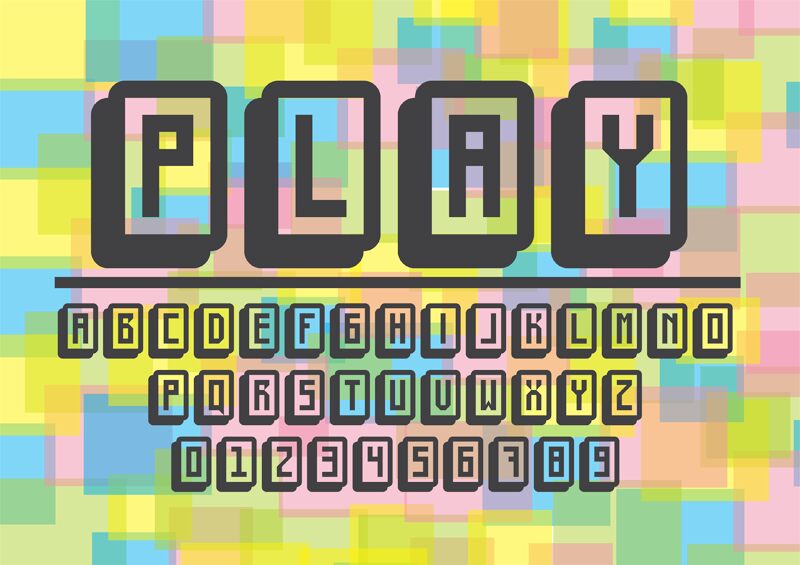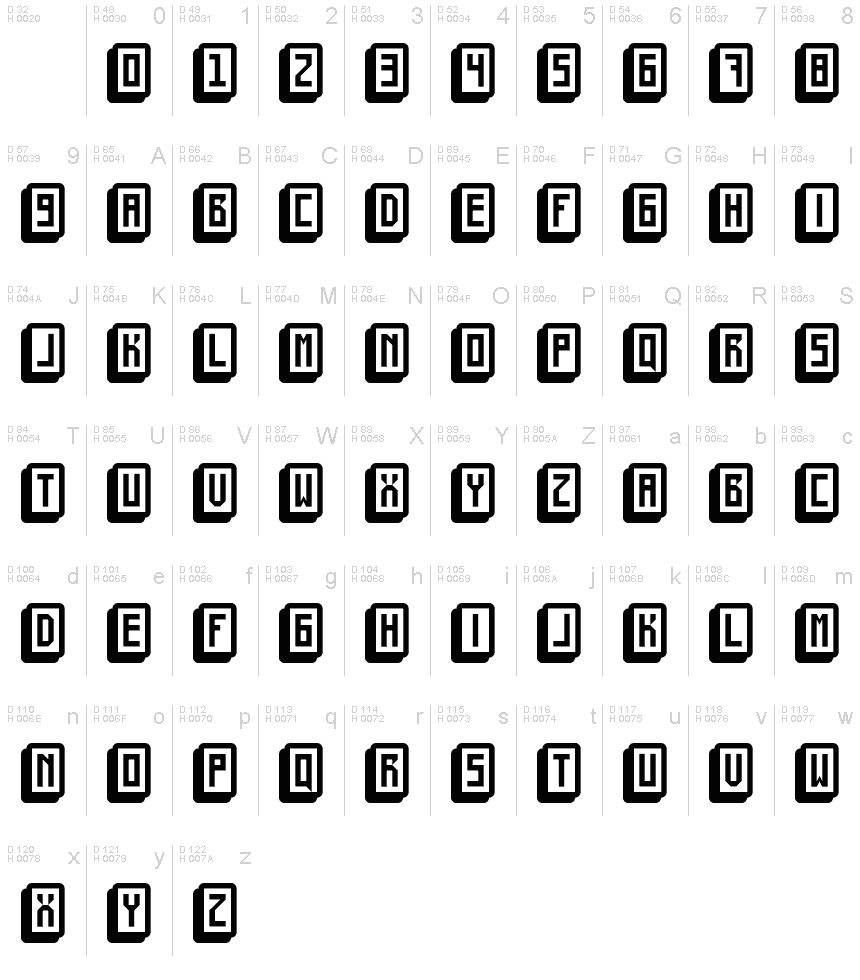
mahjong toy block Regular
Mahjong Toy Block, a distinctive font crafted by earl ciel, exudes a playful, whimsical charm. Its condensed design and decorative elements create a captivating visual aesthetic, evoking a sense of childlike wonder and nostalgia. The font's unique character blends retro-inspired flourishes with a modern, minimalist sensibility, making it a captivating choice for designers seeking to inject a touch of playfulness and individuality into their projects.
This font's versatility shines through its ability to elevate a wide range of design applications, from lively branding and packaging to eye-catching print materials and digital interfaces. Its condensed form allows for efficient use of space, making it an ideal selection for titles, headers, and attention-grabbing elements that demand a bold, distinctive presence. Whether embracing a whimsical theme or seeking to infuse a design with a sense of youthful energy, Mahjong Toy Block by earl ciel offers a charming and memorable typographic solution.